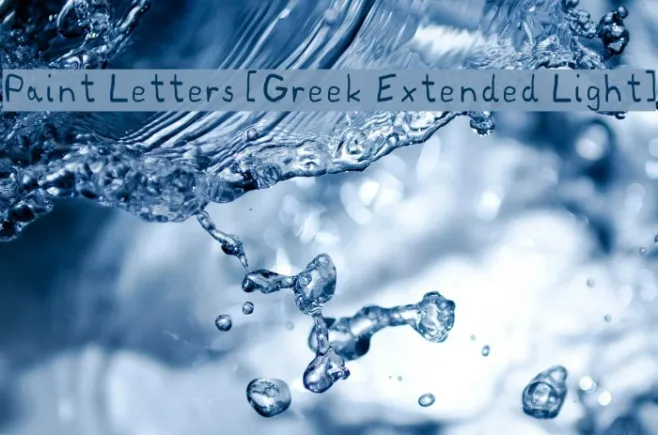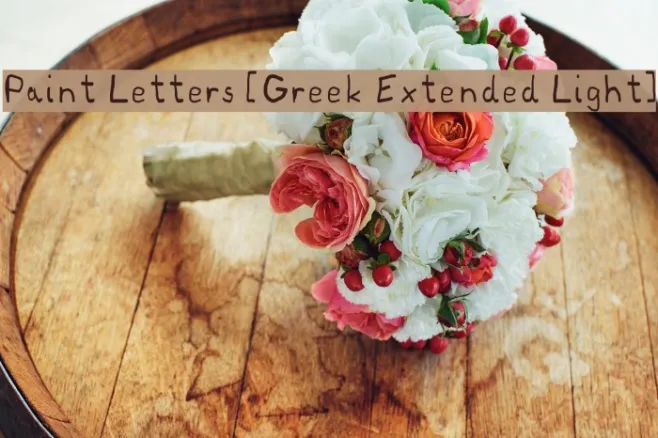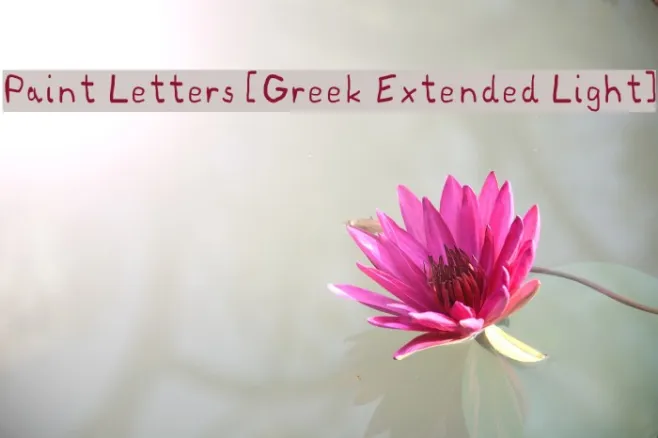
Paint Letters [Greek Extended Light] Font
Paint Letters [Greek Extended Light] Description
This font features a playful, hand-drawn style with a casual and informal appearance. The characters are slightly irregular, giving them a whimsical and artistic feel. The strokes are uneven, mimicking the look of letters painted with a brush. This adds a unique charm and personality to the text. The font maintains readability while offering a distinctive character, making it suitable for creative projects. The numbers and special characters follow the same artistic style, ensuring consistency across all elements.
| Proposed Projects | Ideal for children's books, creative posters, greeting cards, and artistic branding. |